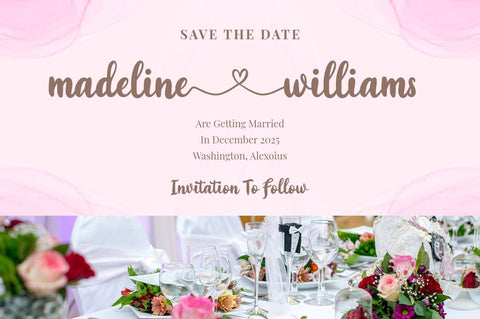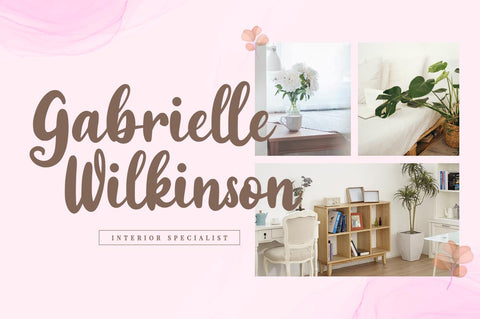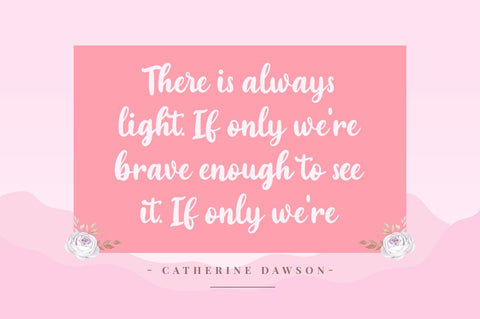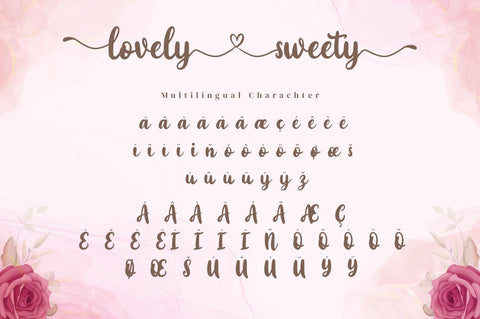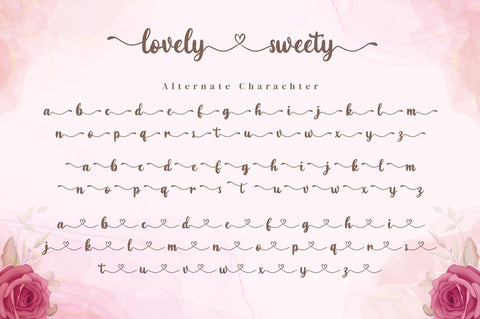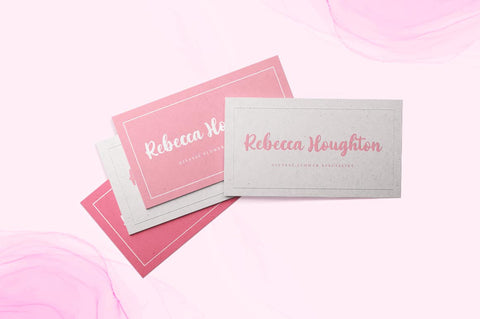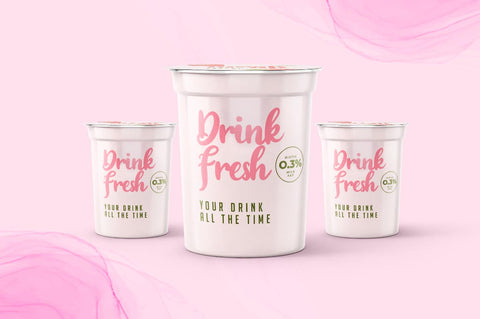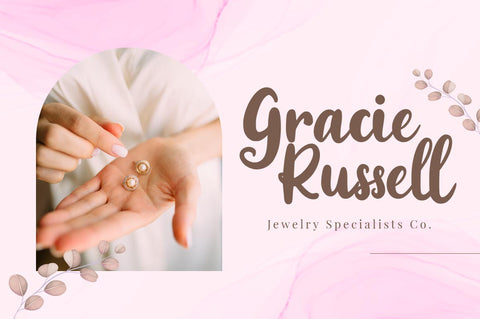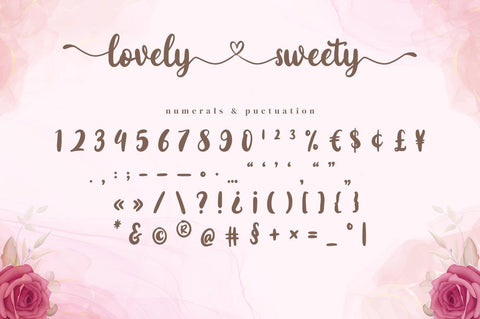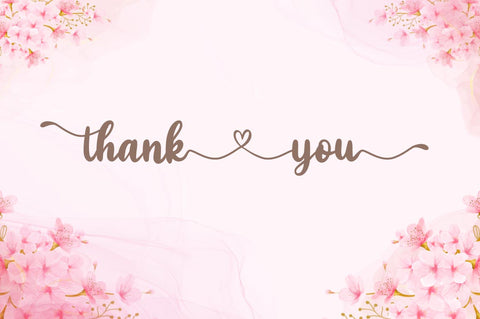
Lovely Sweety - Beautiful Font
Lovely Sweety Beautiful Font is a beautiful font, perfectly suitable for romantic designs such as invitations or souvenirs. It’s the ideal font for making any design idea stand out. Inspired by modern calligraphy and handwritten styles.